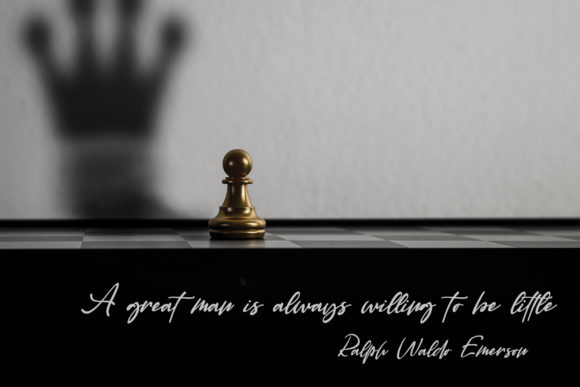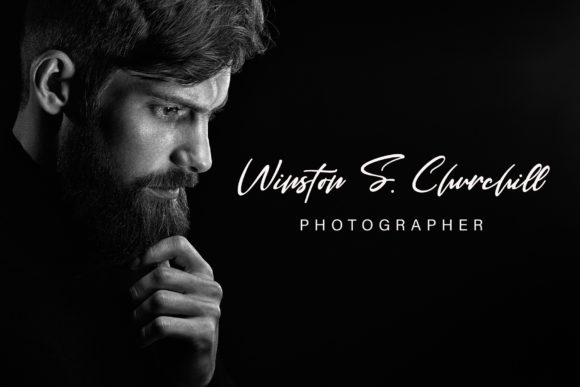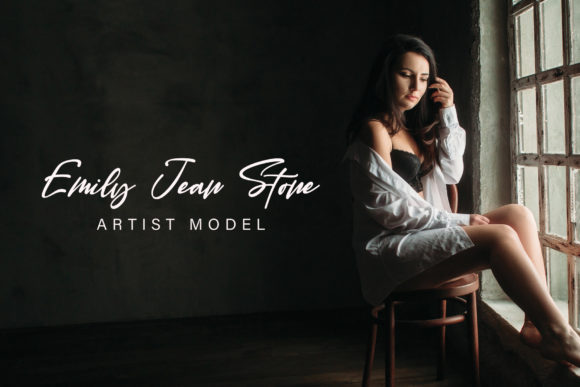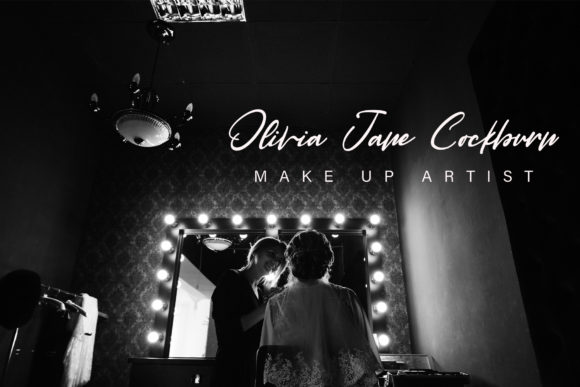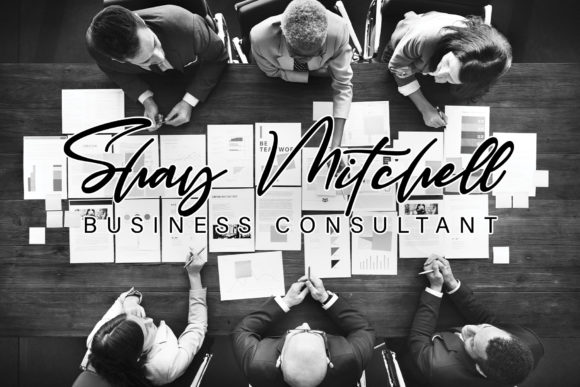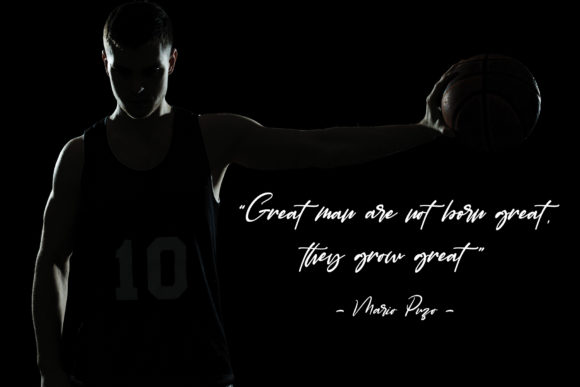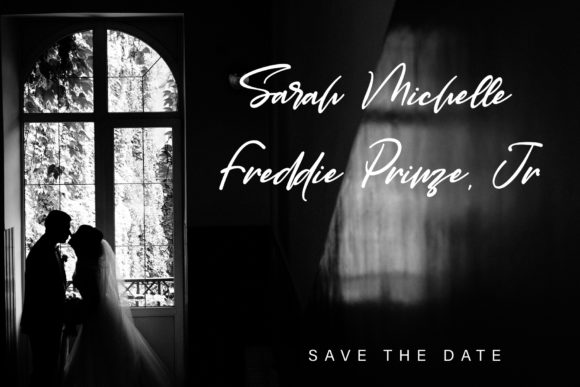
HomeScript FontsAlexandroupoli Font Script Fonts Alexandroupoli Font FacebookXPinterestWhatsApp Alexandroupoli Font Poster 2 Alexandroupoli Font Poster 3 Alexandroupoli Font Poster 4 Alexandroupoli Font Poster 5 Alexandroupoli Font Poster 6 Alexandroupoli Font Poster 7 Alexandroupoli Font Poster 8 About Alexandroupoli Font Alexandroupoli is a beautifully designer script with a modern style. Get inspired by its unique charm! DOWNLOAD ON CREATIVE FABRICAThis font is sold and delivered by Creative Fabrica. Font Canyon may earn a commission if you buy through this link. People also explored Wild Grook Font Vanila Font Graphephant Font Dolly Font Sheppaloe Font Dream Beach Font Saint Gnome Font Stea Font Black Pop Font 259 0 TagsAlexandroupoli Font Previous articleWinston Andrews FontNext articleSympathi Font LEAVE A REPLY Cancel reply Comment: Please enter your comment! Name:* Please enter your name here Email:* You have entered an incorrect email address! Please enter your email address here Website: Save my name, email, and website in this browser for the next time I comment. Personal Use Free Veronica Personal Use Free Read more about this font Multicolore Personal Use Free Read more about this font Starting Live Personal Use Free Read more about this font Metal Lord Personal Use Free Read more about this font BLOG Transform Your Website: Elevate Your Typography with 7 Best Web Font Generators Are you ready to transform your website's typography from ordinary to extraordinary? Great! Today, we're diving into the world of web font generators, which... Free vs Paid Fonts: Why Investing in Premium Fonts Is Worth It Free Fonts Risk: Why Free Fonts Can Be Dangerous for Designers Top 7 Google Fonts Alternatives for Faster and Privacy-Friendly Web Design (2025)